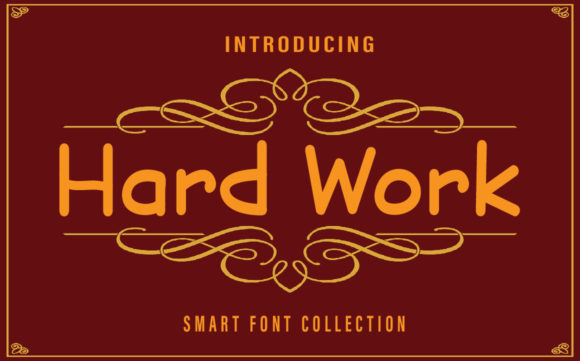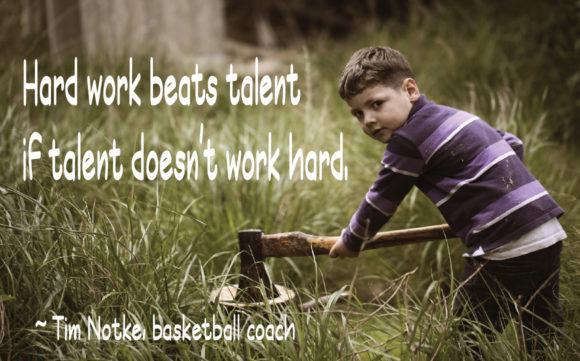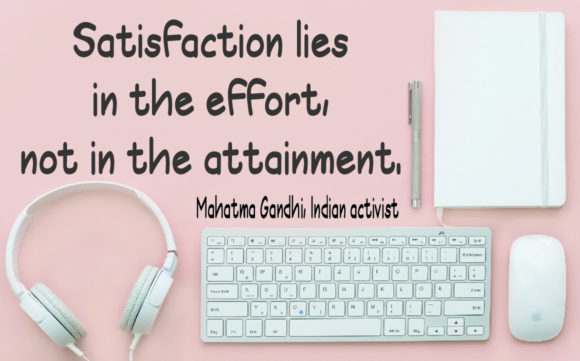
About Hard Work Font
Hard Work is a simple and unique handwritten font. It can easily be matched to an incredibly large set of projects, so add it to your creative ideas and notice how it makes them stand out!